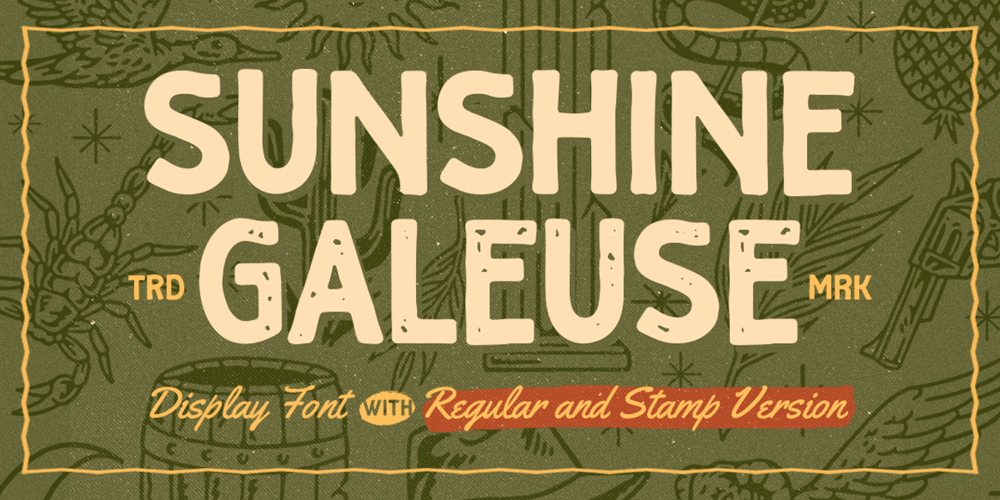
Sunshine Galeuse Font Family was designed by Hendry Juanda and published by Letterhend. Sunshine Galeuse contains 2 styles and family package options. Introducing, Sunshine Galeuse Display font with a touch of classic look and feel. It comes with 2 styles, regular & stamp. This font is also perfectly made to be applied especially in logo, headline, signage and the other various formal forms such as invitations, labels, logos, magazines, books, greeting / wedding cards, packaging, fashion, make up, stationery, novels, labels or any type of advertising purpose.Features : Uppercase & lowercase Numbers and punctuation Alternates & Ligatures Multilingual PUA encoded